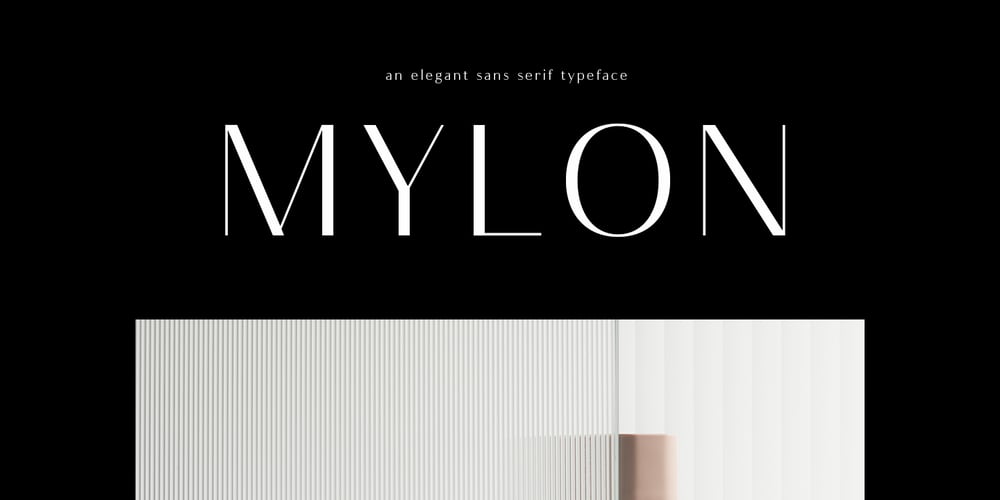
Mylon
Mylon font
Mylon Font Family was designed by Nasir Udin, Haidi Shabrina and published by Nasir Udin. Mylon contains 14 styles and family package options. Mylon is an elegant display sans-serif family with high contrast. It has 14 styles with 7 weights plus matching italics. Mylon works well with headlines or short paragraphs. It has extended latin character set that supports 200+ latin-based languages.